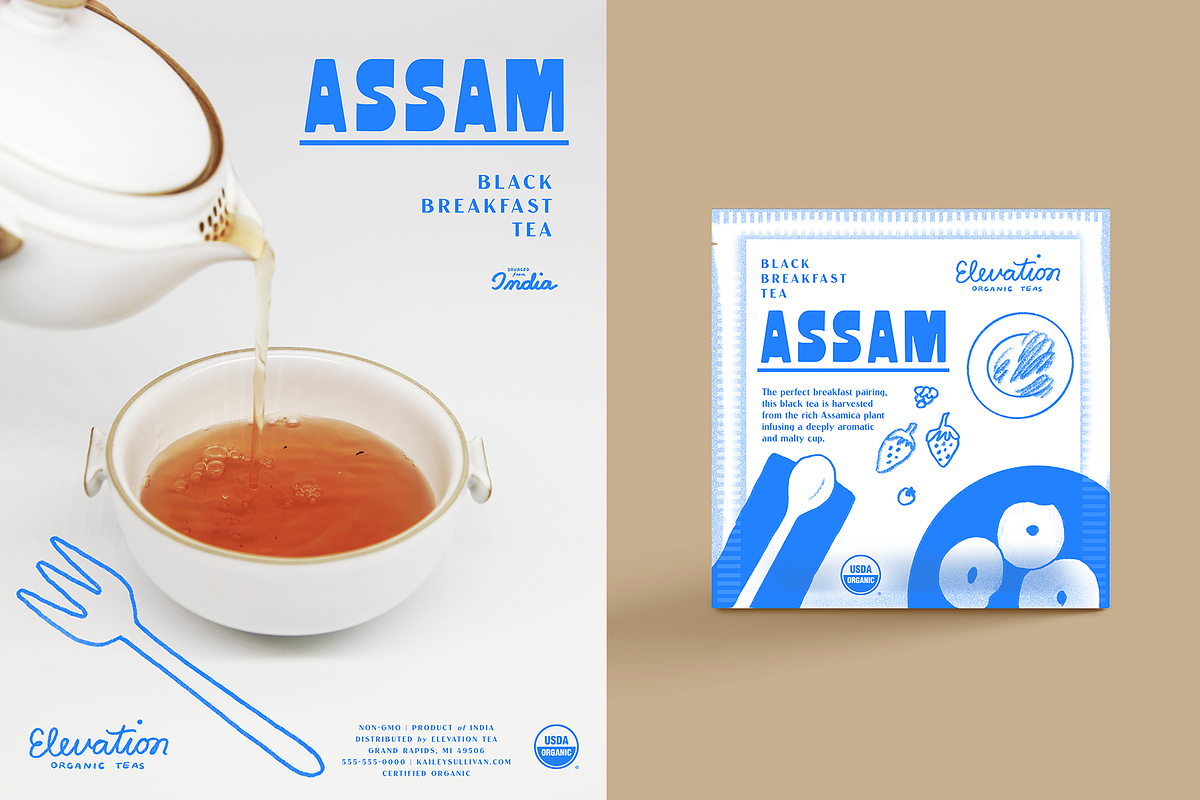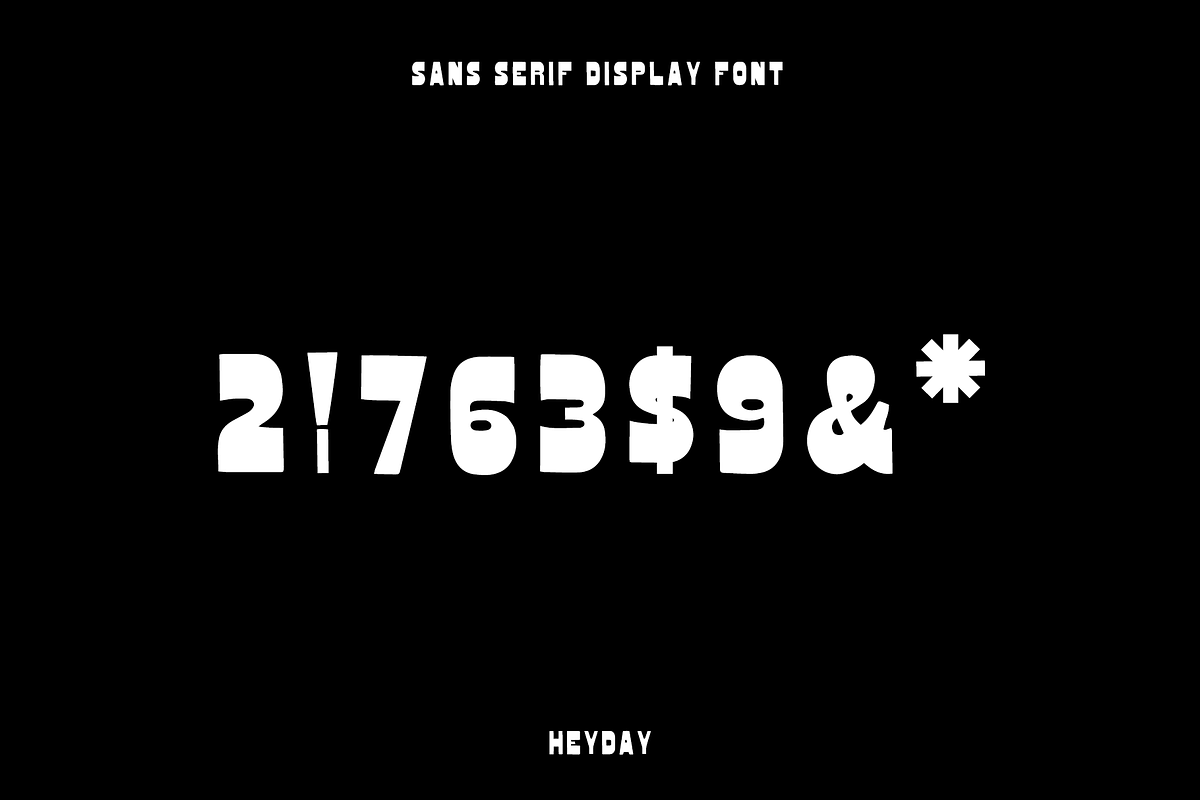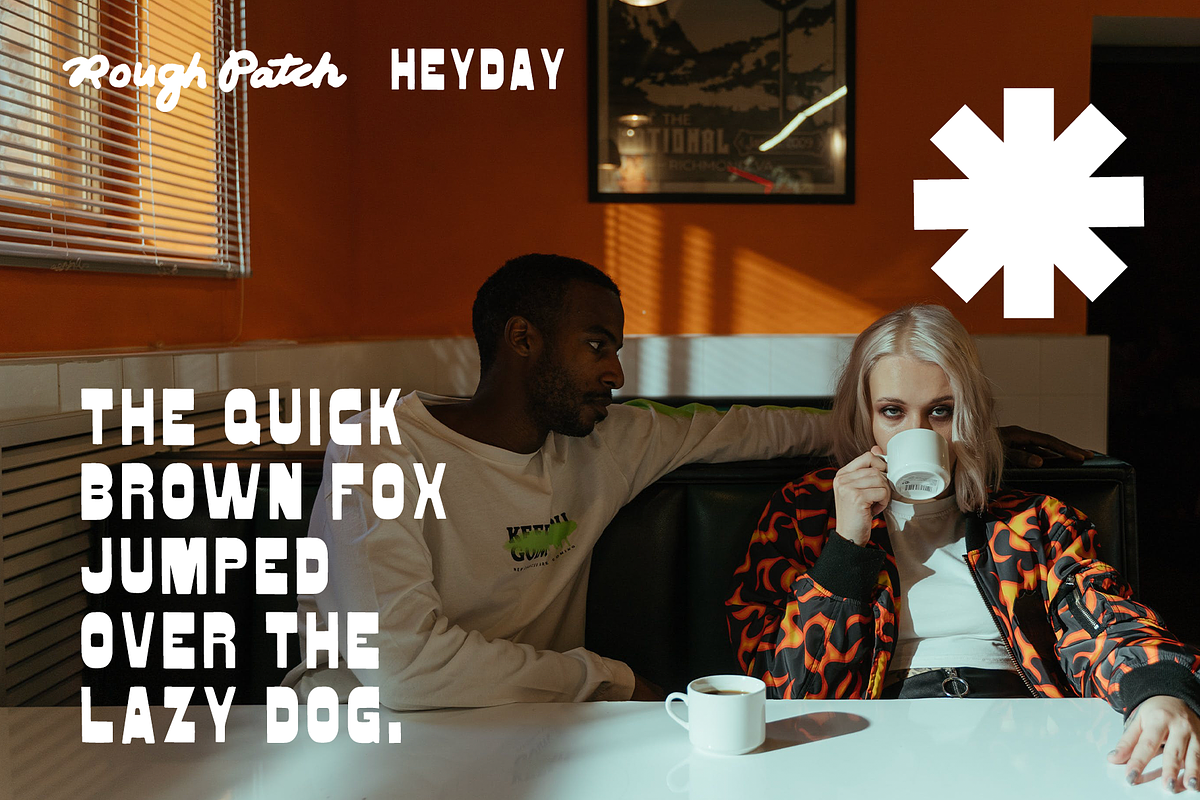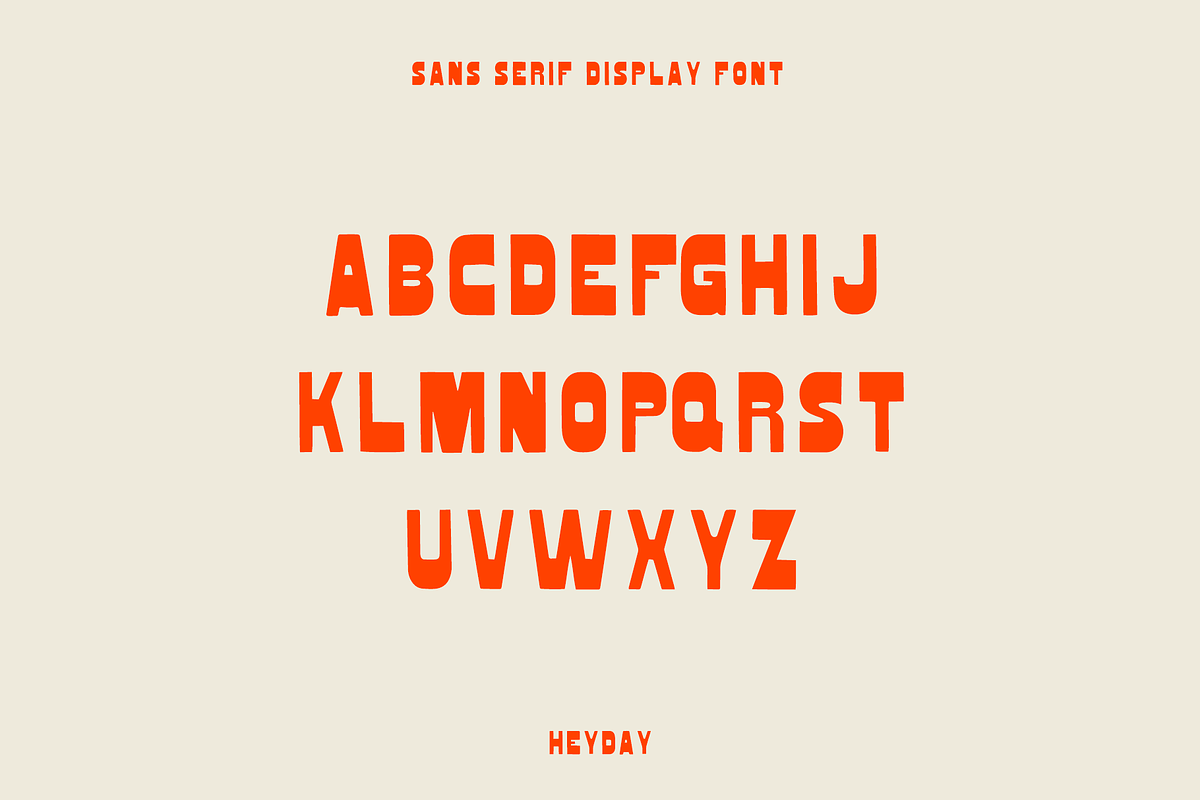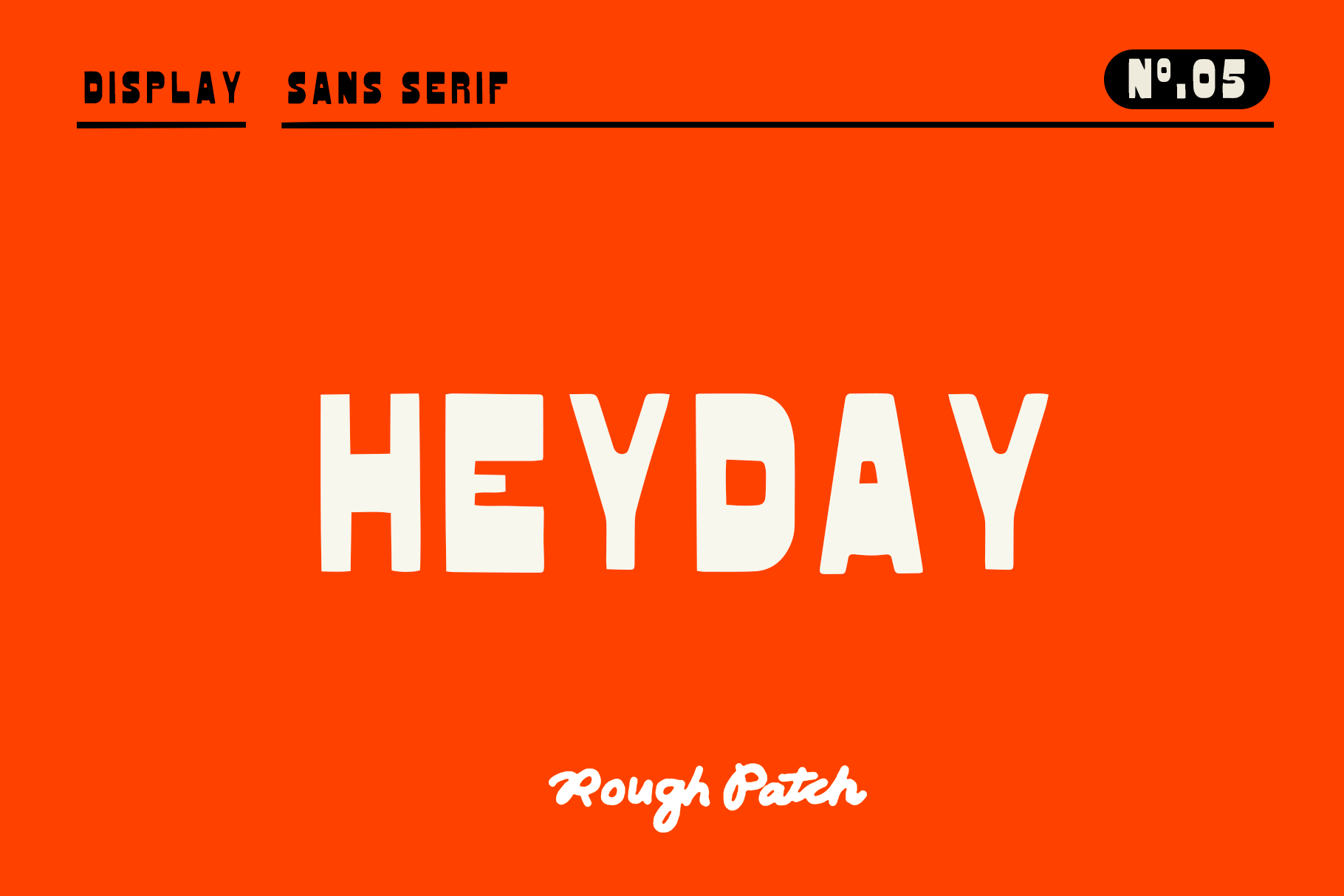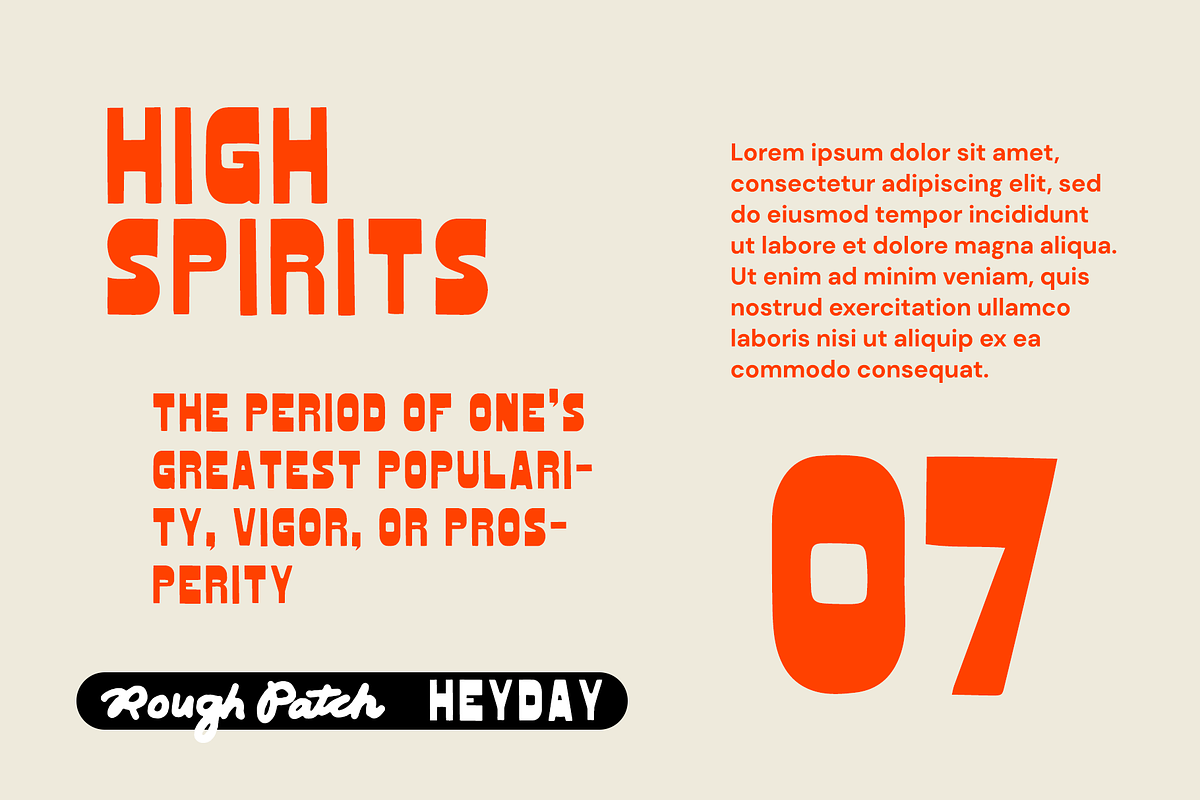
HeyDay | Sans Serif Display Font
HeyDay An uppercase sans serif font with varied weight strokes, a solid body, and a lot of character! Includes A-Z, numbers & primary symbols. Display font is great for logos, signs, titles, packaging, and whatever other dreams you have.
Designed and kerned with care.